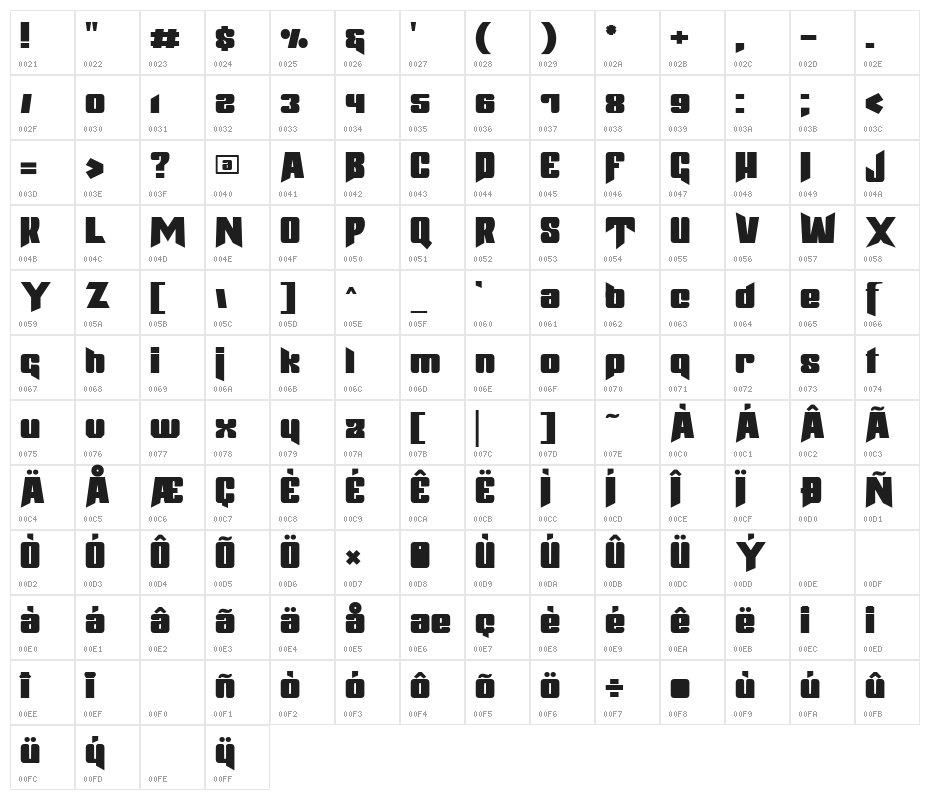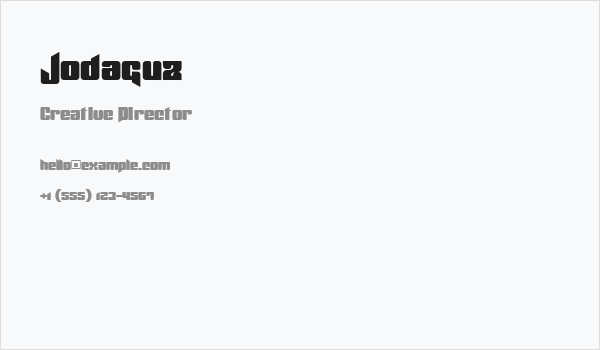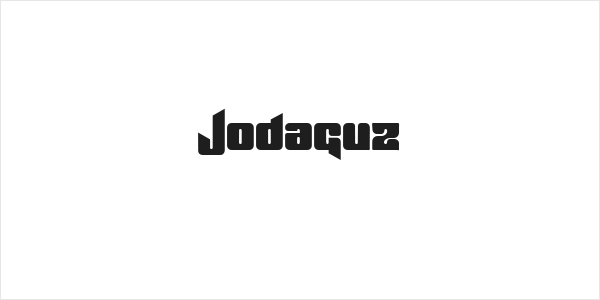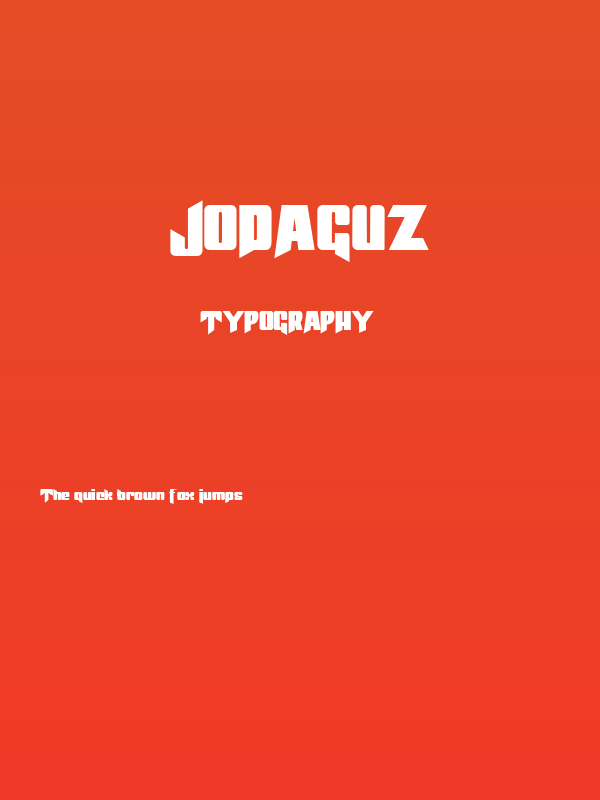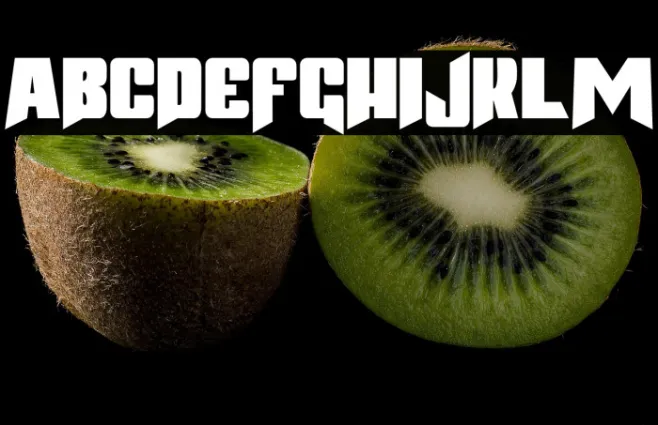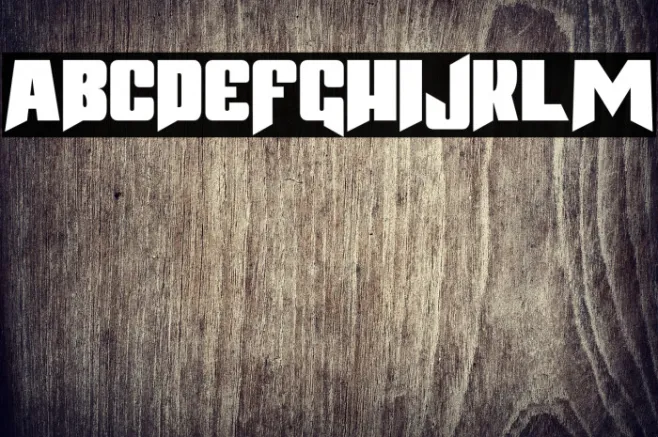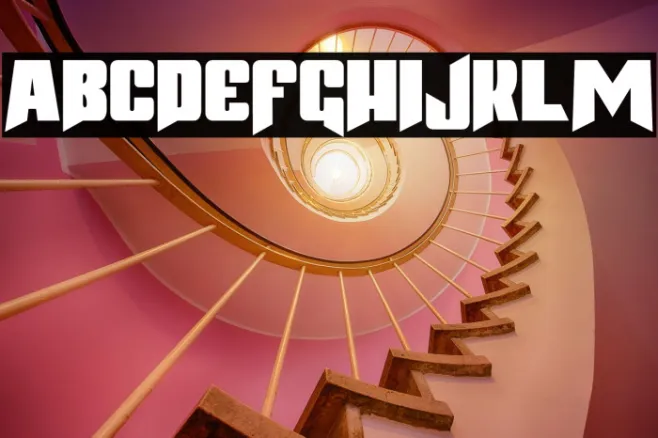
Jodaguz Font
Jodaguz Description
This font features a bold and striking design with sharp, angular edges and a strong geometric influence. The uppercase letters are particularly distinctive, with a blocky, almost futuristic appearance that commands attention. The lowercase letters maintain this boldness, offering a consistent look across both cases. The numerals are equally robust, ensuring clarity and impact. Special characters are designed to match the overall aesthetic, providing a cohesive visual experience. This font's unique style makes it ideal for projects that require a strong, memorable visual impact.